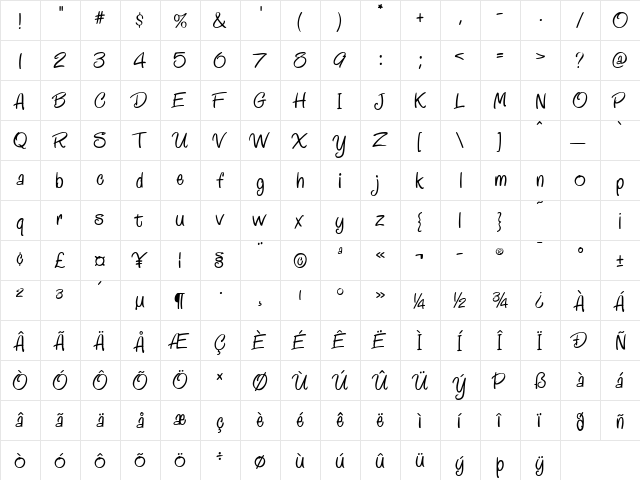
Lindsy Regular
Design Context for Lindsy Typeface
Lindsy is a composed and adaptable typeface that performs quietly and consistently across a wide range of design contexts.